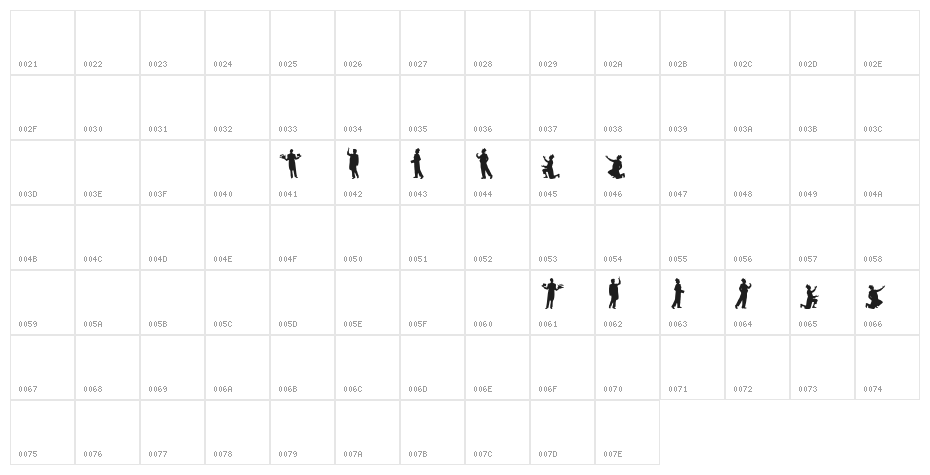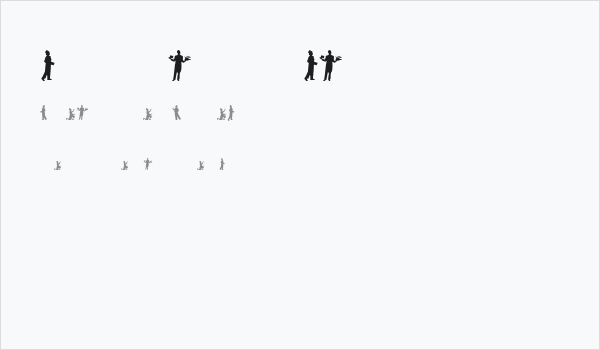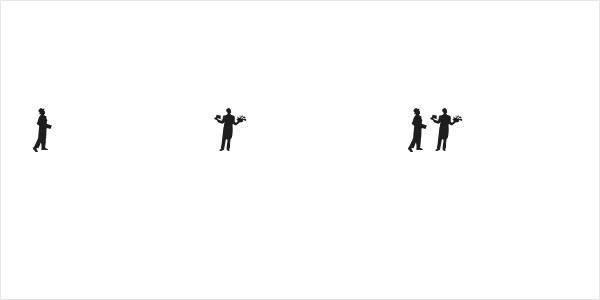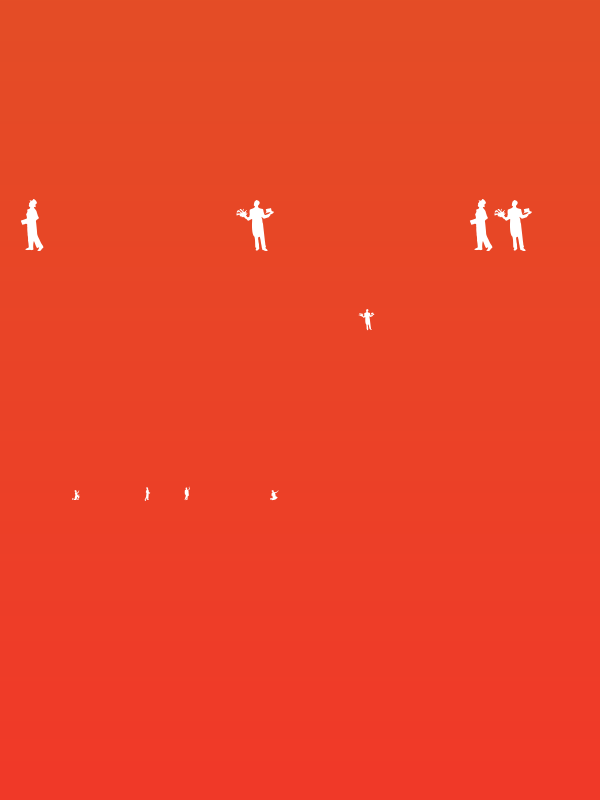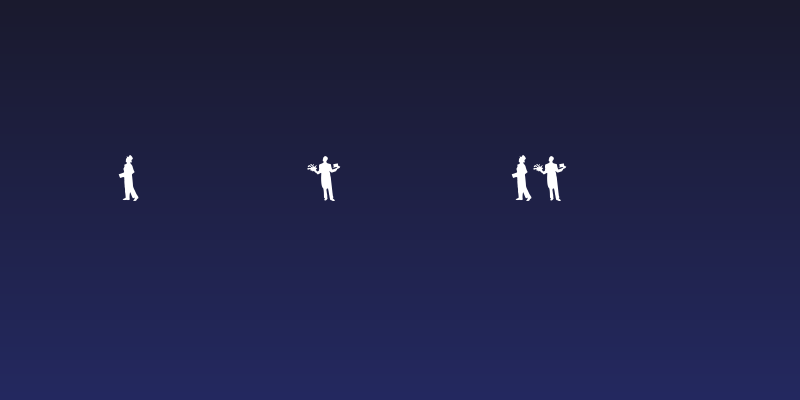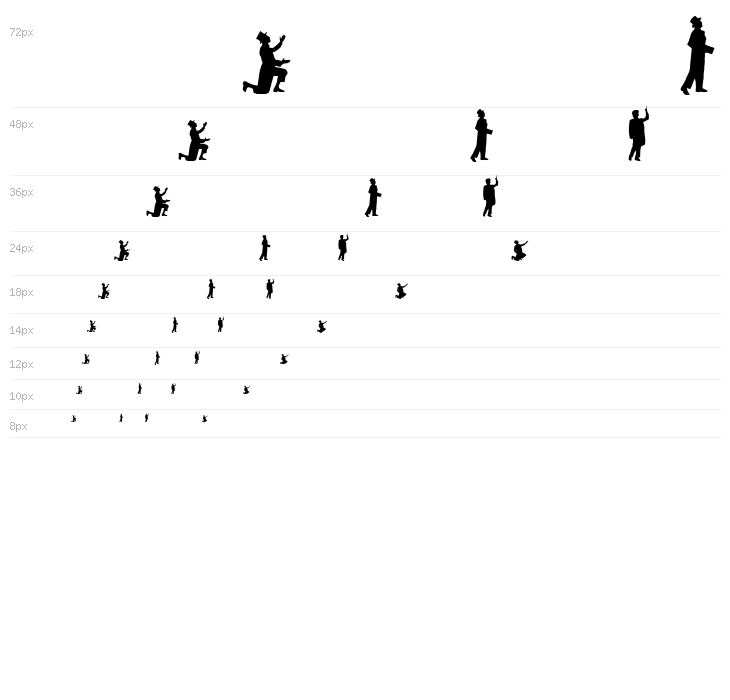
curtain call Font
curtain call Description
A decorative display font where each character is represented by a silhouette of a person in various theatrical poses, creating a playful and dramatic effect.
Overall StyleDecorative, Playful, Theatrical
Proposed ProjectsEvent posters, theater programs, creative invitations, themed branding, childrenÒ€ℒs books.